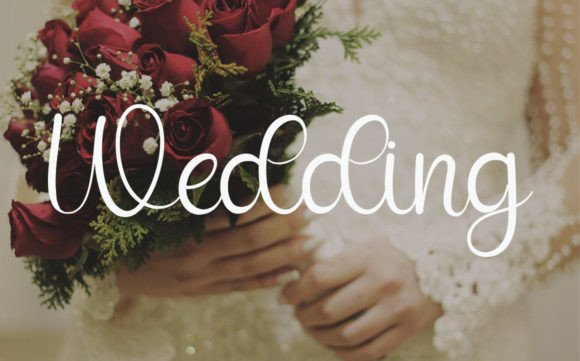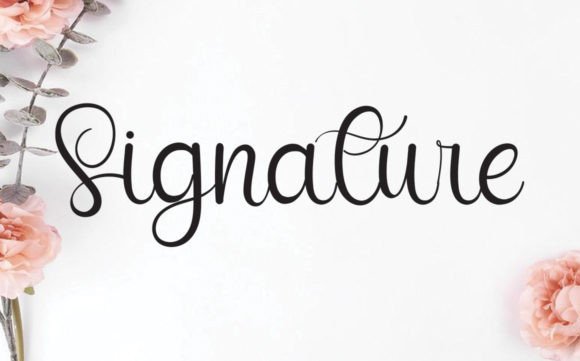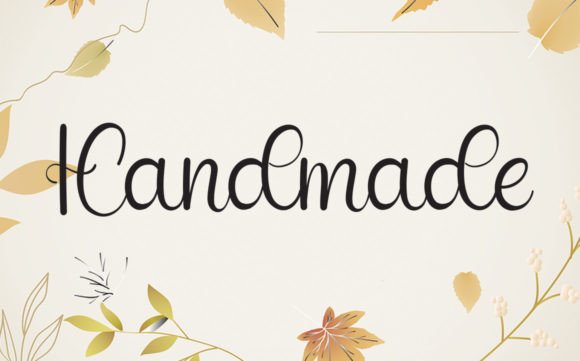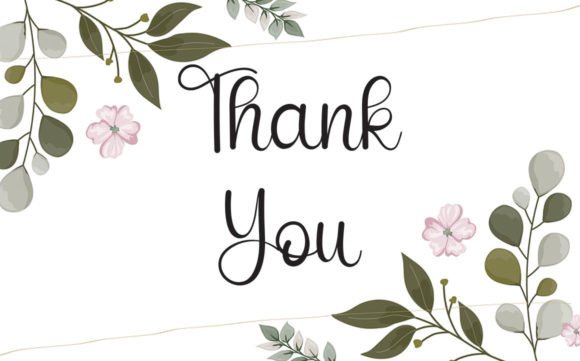
Twinkle Font
About Twinkle Font
“Twinkle” is an enchanting handwritten font that captivates with its magical and romantic charm. This versatile font offers a wide spectrum of applications, making it suitable for a range of creative projects, from greeting cards to headlines.
The enchanting quality of “Twinkle” is evident in its carefully crafted handwritten style. The characters exude a sense of whimsy and grace, creating an overall aesthetic that is both charming and delightful. This makes the font a perfect choice for projects that require a touch of enchantment and romance.
Whether you’re working on greeting cards, invitations, or other creative designs, “Twinkle” adds a romantic feel that resonates with a broad audience. Its versatility ensures that it can be seamlessly integrated into various applications, bringing a magical quality to your text.
In summary, “Twinkle” is not just a font; it’s a design element that enchants and adds a romantic touch to your projects. Its whimsical and graceful style makes it a valuable asset for creating captivating and delightful designs across a range of creative endeavors.